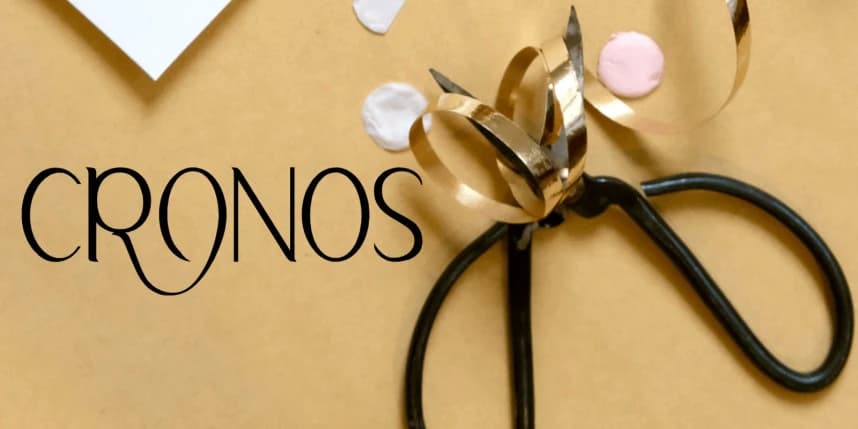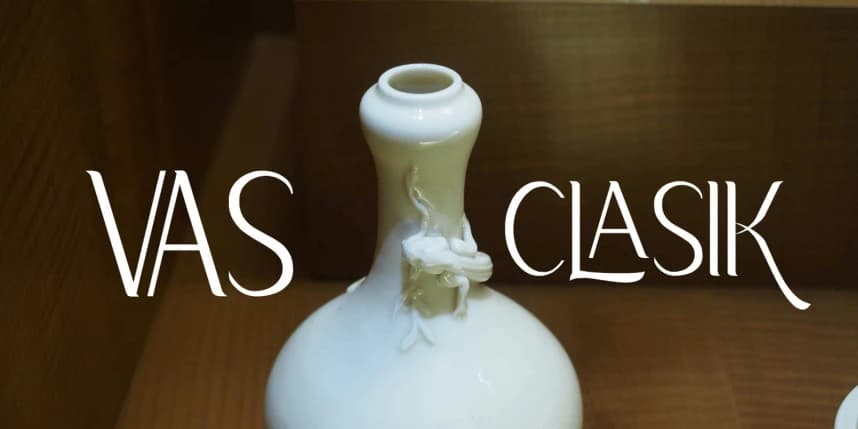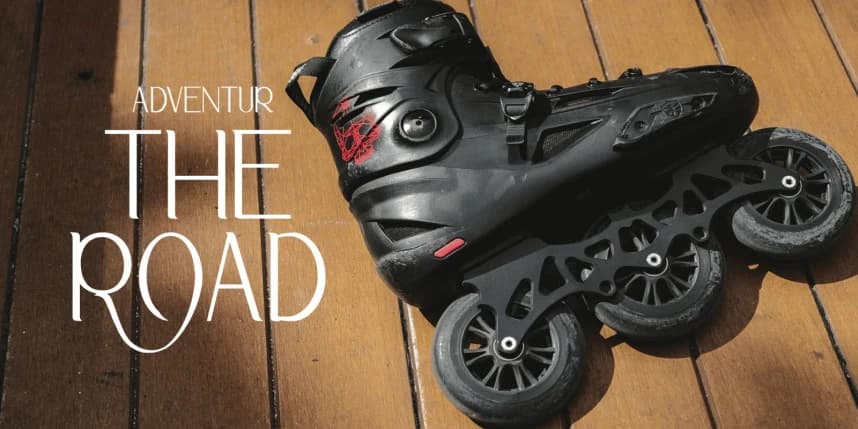
Aligr Font
ALIGR Font is a bold and modern display font designed to make a strong visual statement. Featuring solid letterforms and confident proportions, ALIGR delivers a powerful, clean, and expressive character that stands out instantly.